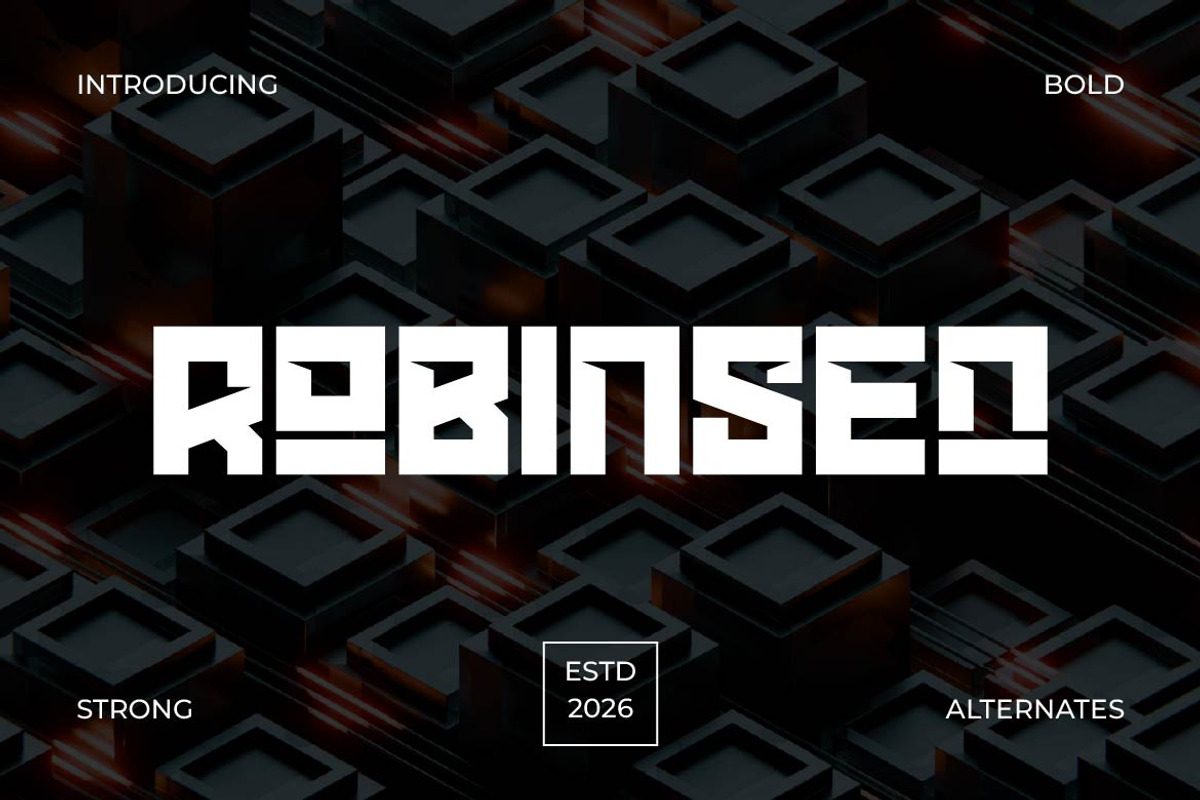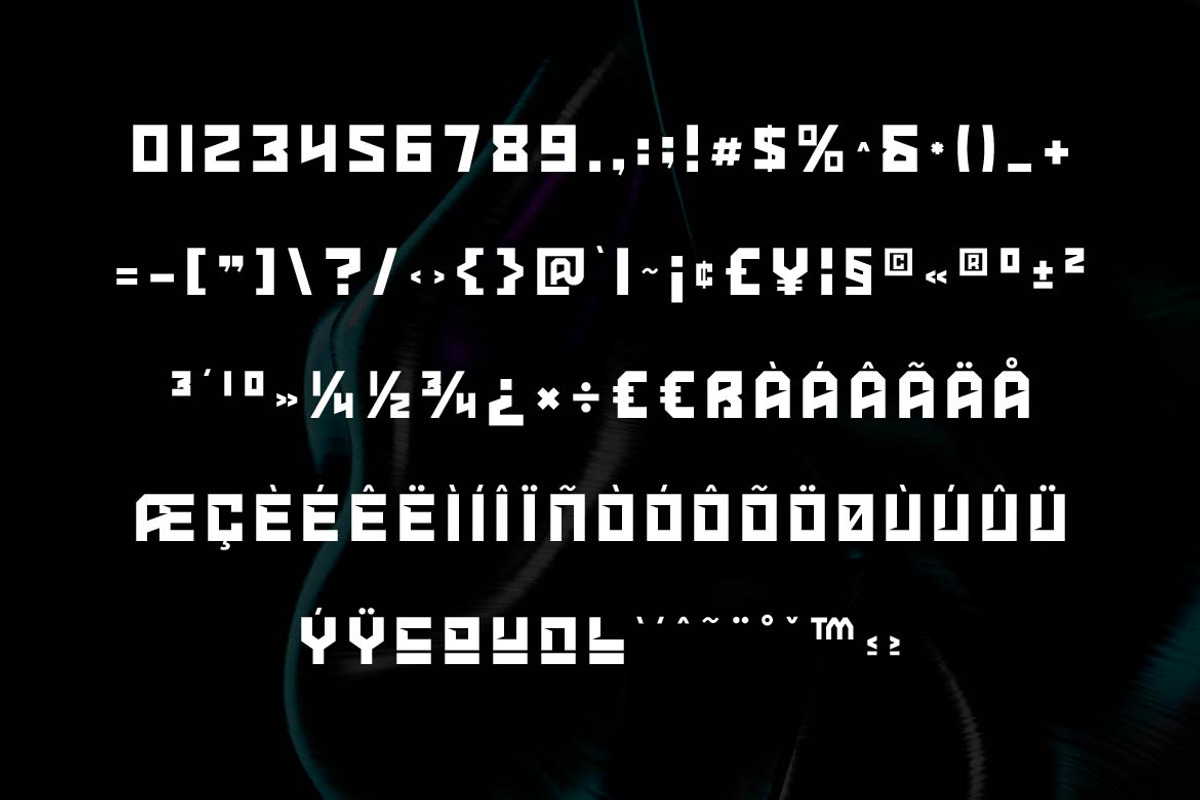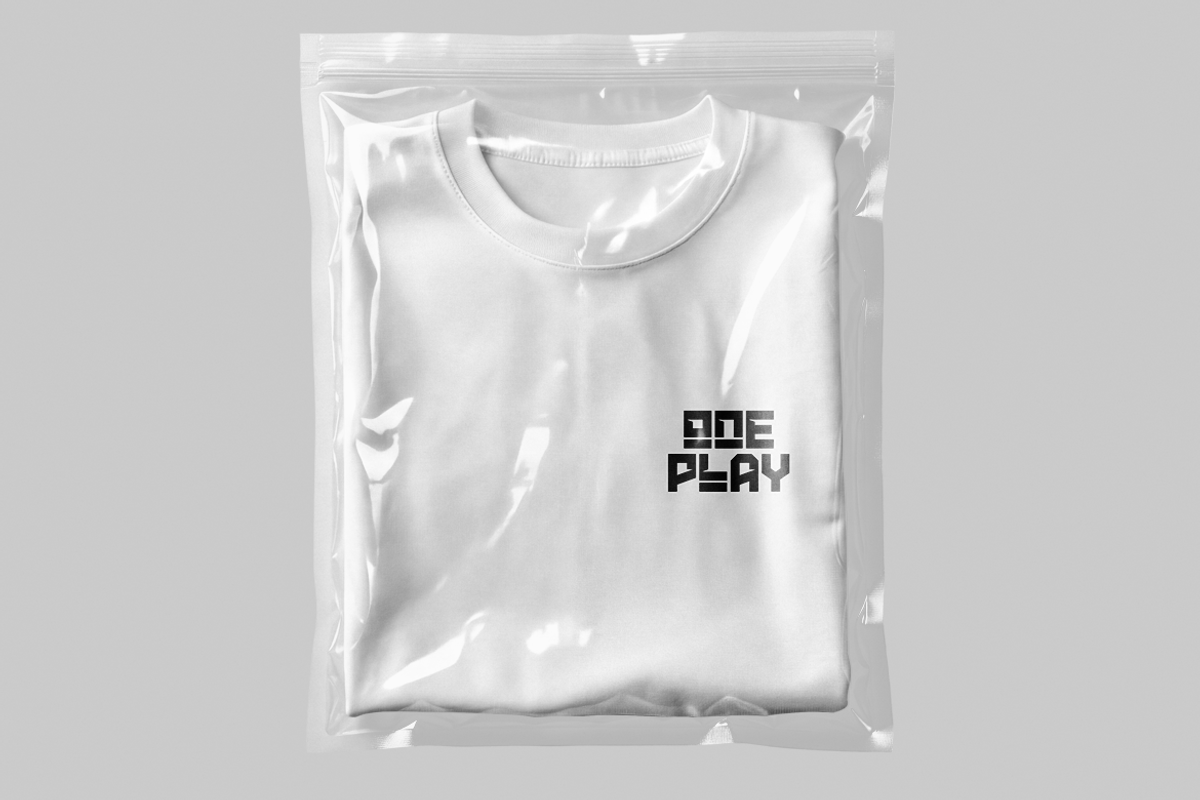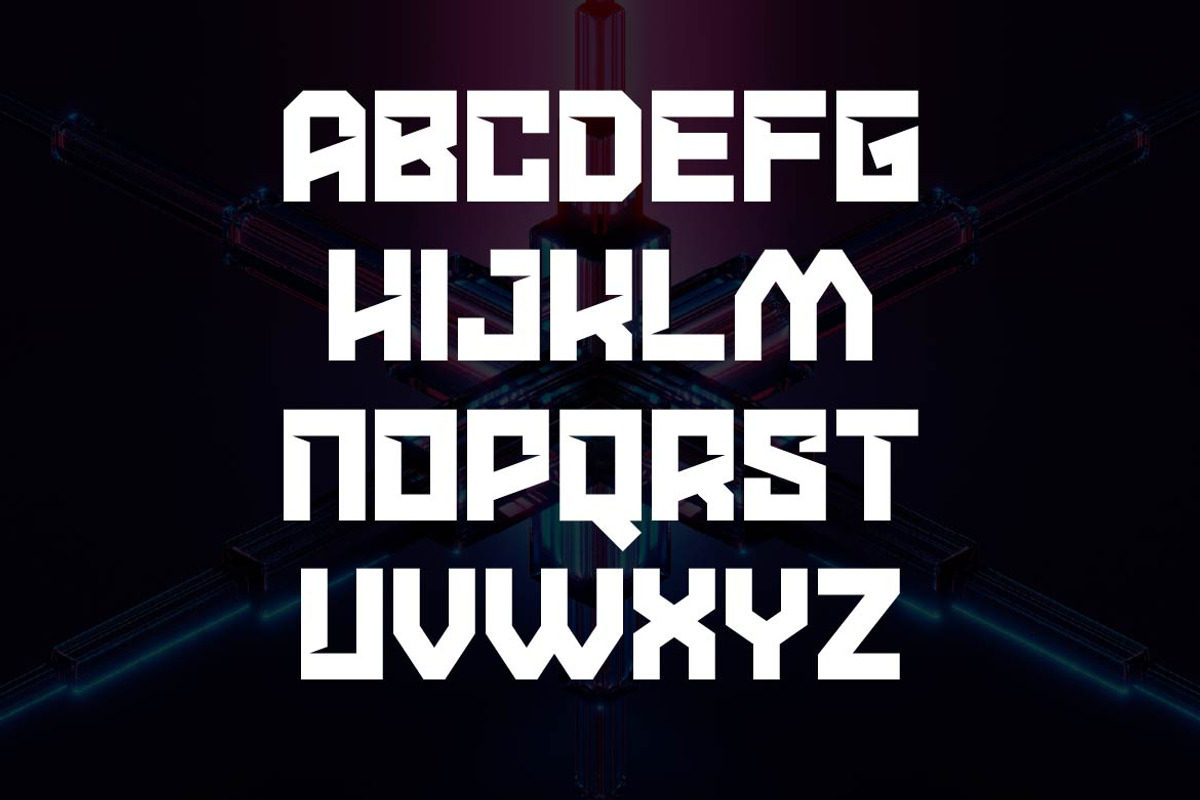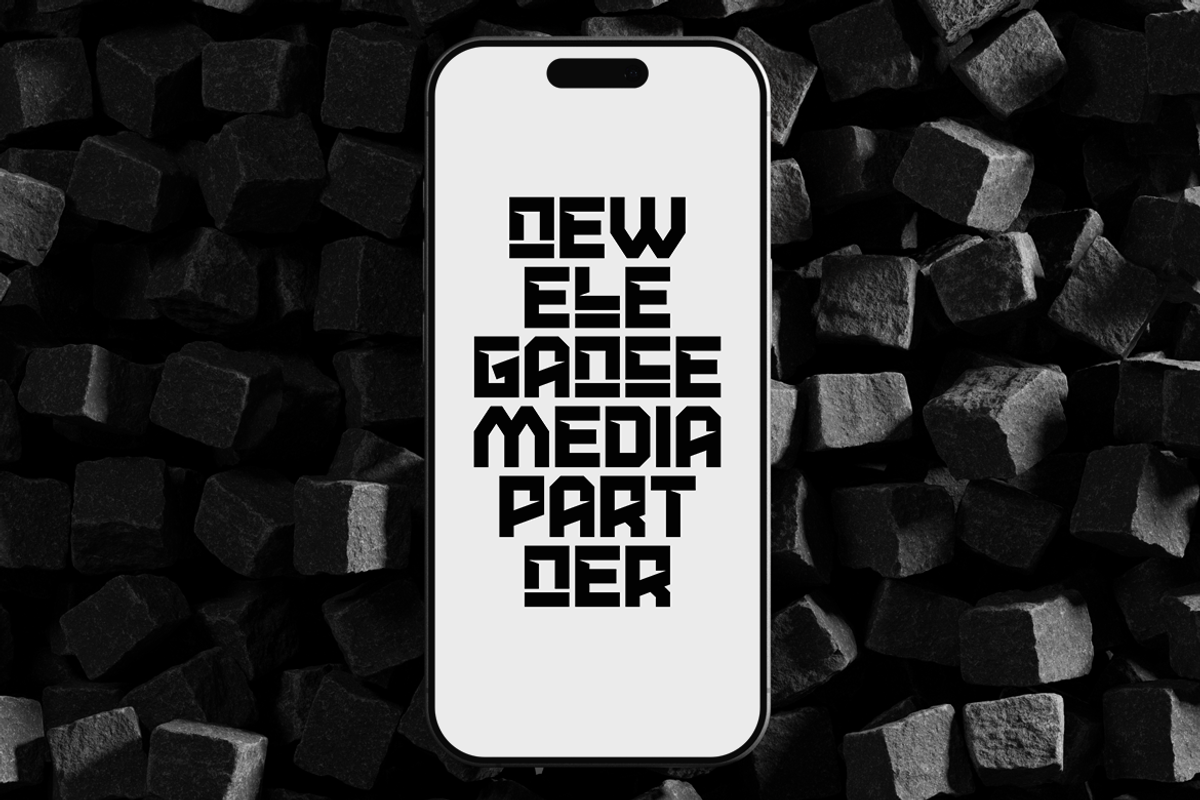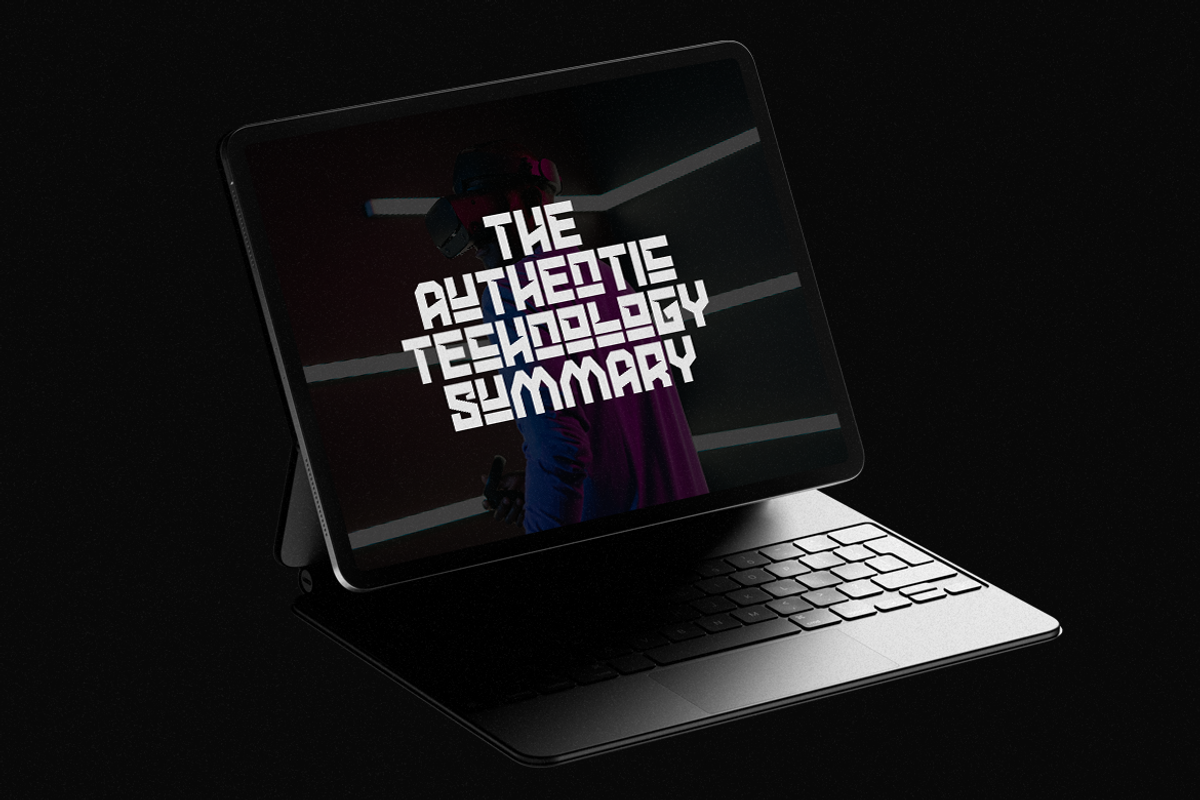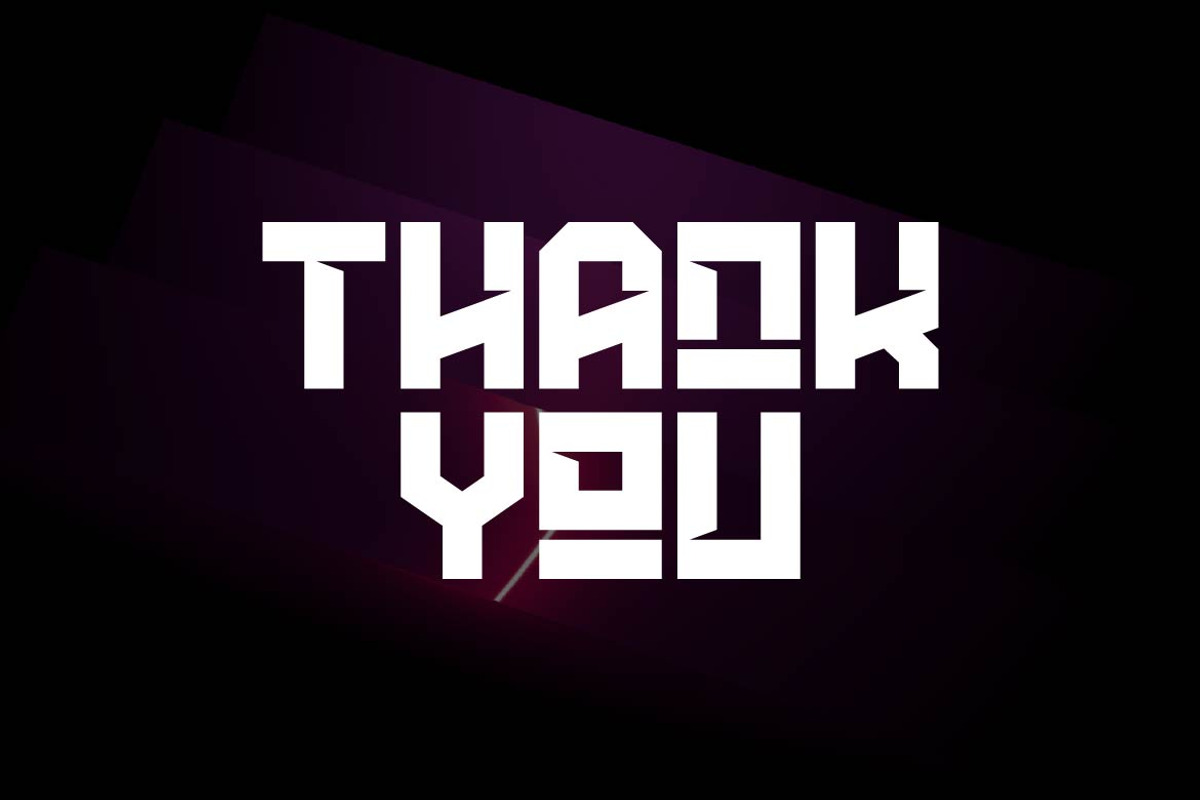
Robinsen – Bold Tech Display Font
Robinsen is a strong bold technology display font engineered for futuristic branding and high-impact digital design. Featuring sharp geometry, powerful letterforms, and a modern industrial aesthetic, Robinsen creates a commanding visual presence that instantly captures attention.
Ton of glyphs